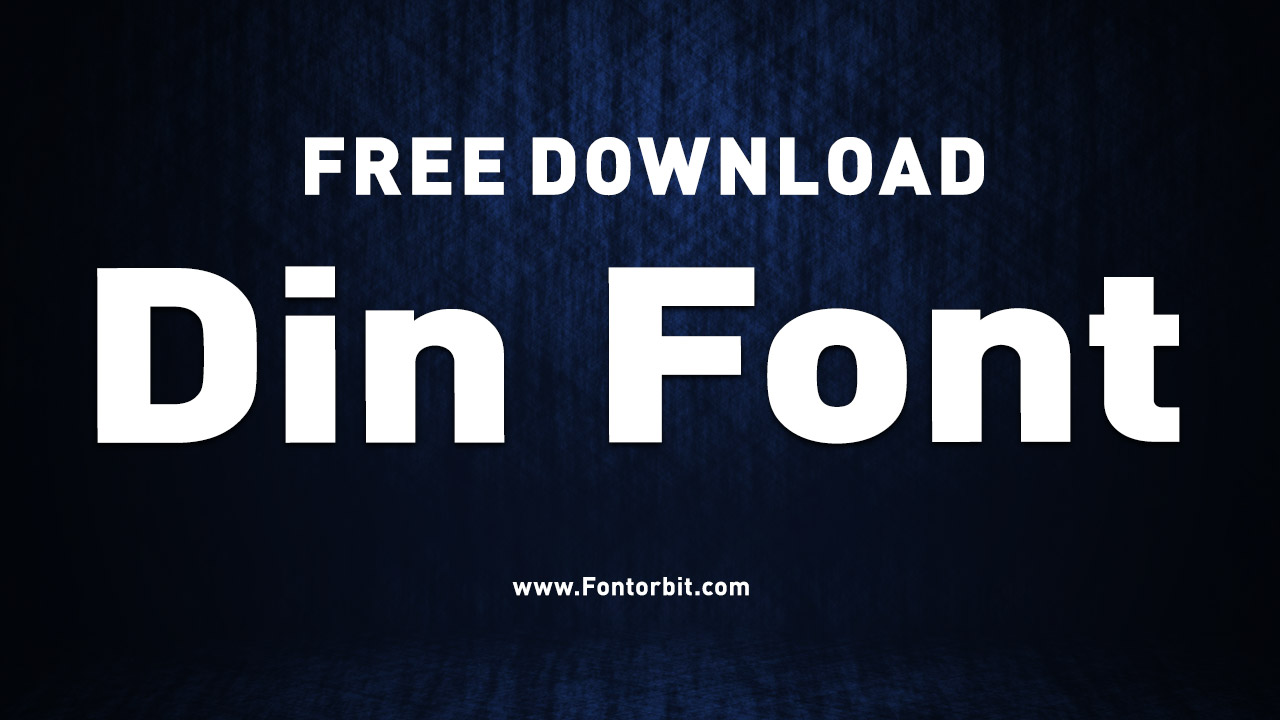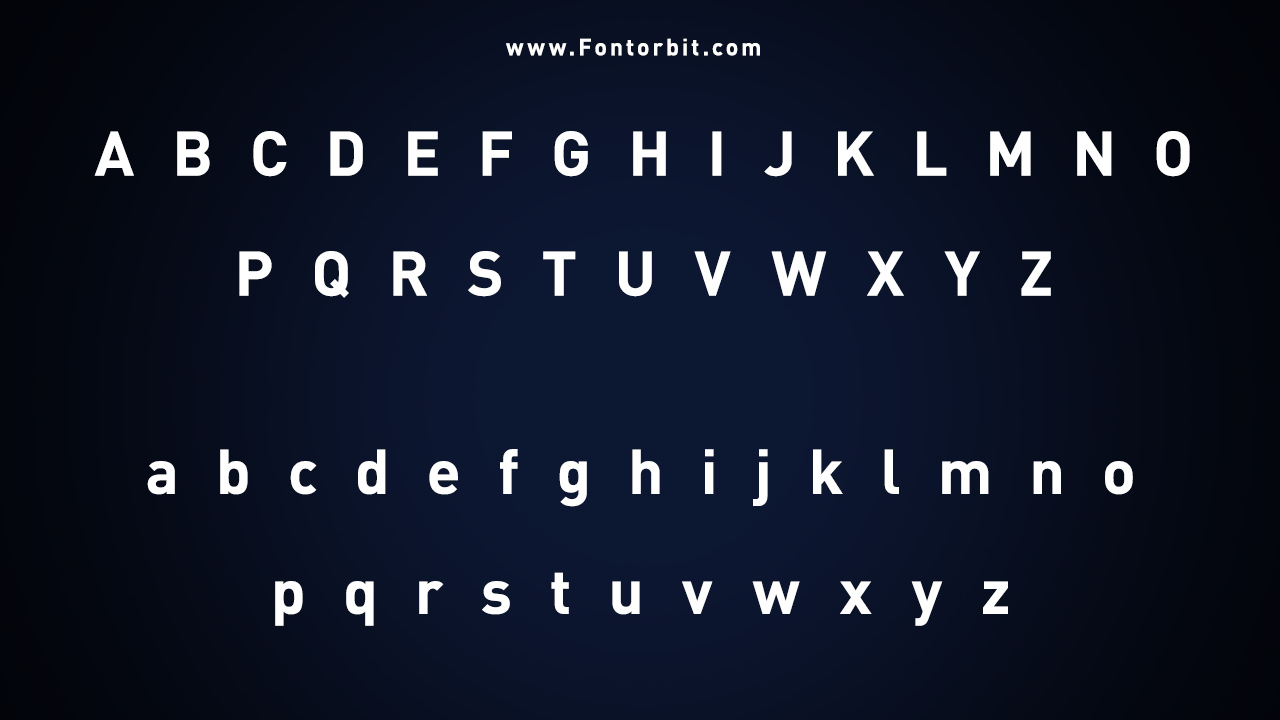
The DIN typeface is named after the Deutsches Institut für Normung (German Institute for Standardization). It was developed in 1931, based on a font created in 1906 by the Preußische Bahnverwaltung (Prussian Railway Administration) for internal use. This geometric sans-serif typeface has become iconic due to its clean, minimalistic design, which makes it highly legible and adaptable across a wide range of media.
DIN Font Family Includes
The DIN Font family includes a variety of weights and styles, making it versatile for different design purposes. Its strength lies in its highly structured, geometric characters, which deliver precision and professionalism. The family consists of several variations that cover both light and bold presentations.
a. DIN Reguler
Notable Uses Of DIN Font
The DIN font has been widely used in branding, signage, and other professional settings where legibility is key. It’s a common choice for transportation, government publications, and corporate branding.
- Road signs in Germany and other European countries.
- User interfaces, particularly in industrial software.
- Corporate branding for companies like Audi and Lufthansa.
- Packaging and product labels, especially for technical products.
DIN 2014 suits projects requiring clarity, professionalism, and a modern aesthetic. Consider using this font in the following scenarios:
- Corporate presentations
- Web and mobile applications
- Product labeling
- Engineering and technical documents
- UI/UX interfaces
If you’re looking for alternatives to the DIN font but want a similar feel, here are some free options that capture the essence of DIN:
- D-DIN
- Gidole
- Barlow
- Golos Text
- Clear Sans
- Bai Jamjuree
- Roboto
- Open Sans
- PT Sans
The DIN font is an industry standard for clean, professional, and highly legible typography. Its long history and modern appeal ensure this font will remain a favourite among designers across different industries. DIN provides clarity that few fonts can match, whether for corporate branding, technical documentation, or digital interfaces.
2.What Is DIN Font Used For?
DIN is commonly used in road signs, corporate branding, and user interfaces.
5.What Type Of Font Is DIN?
DIN is a geometric sans-serif font.
7.What Industries Commonly Use The DIN Font?
Industries like transportation, engineering, and technology frequently use DIN.
8.Why Is DIN Font So Popular?
Its clear, structured design makes it ideal for professional and technical use.